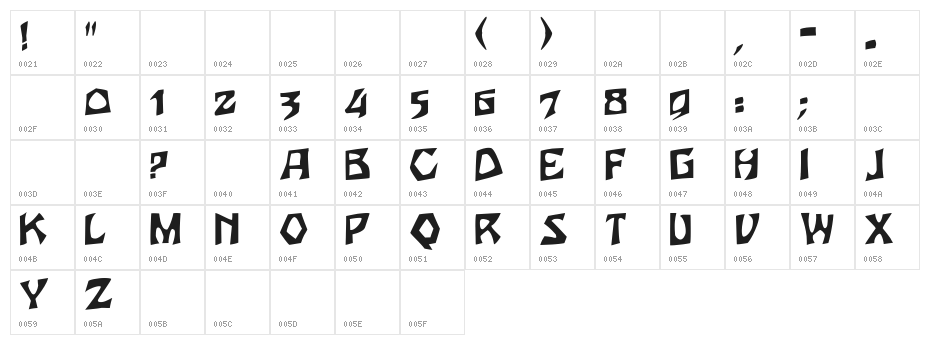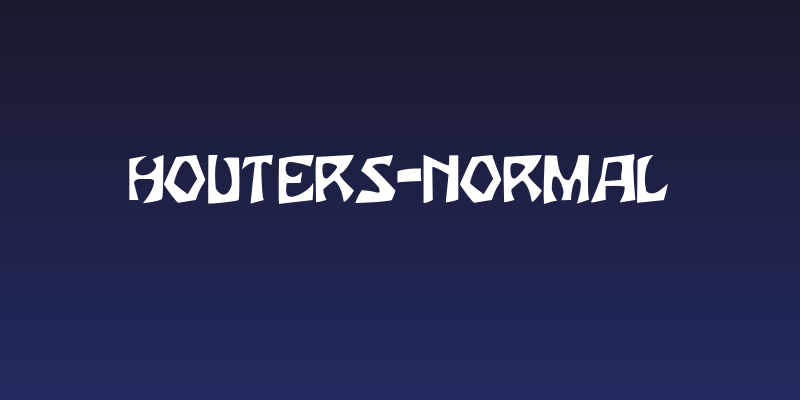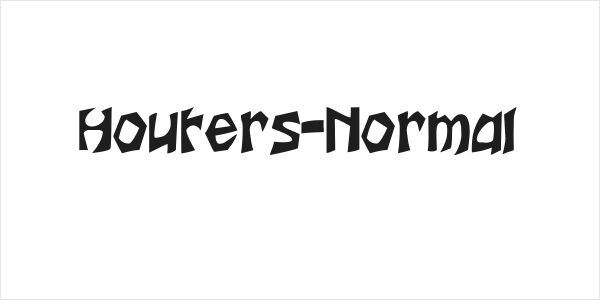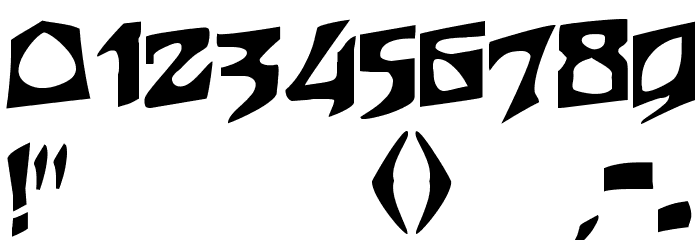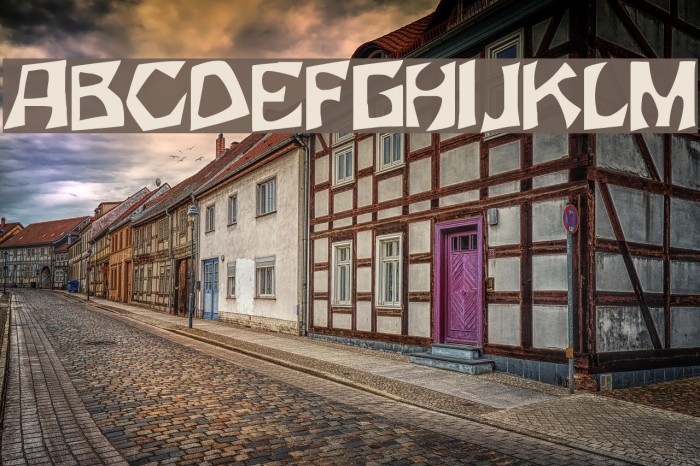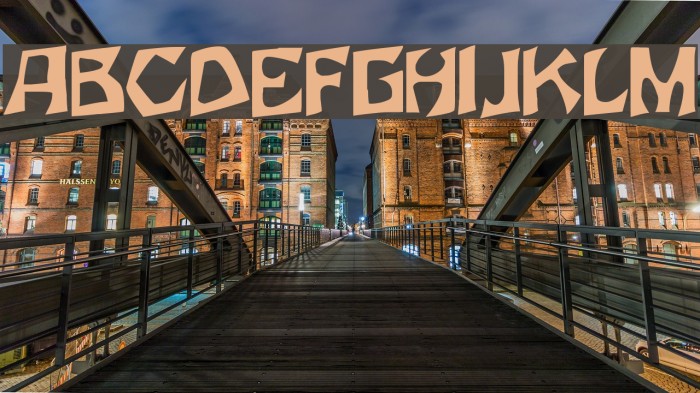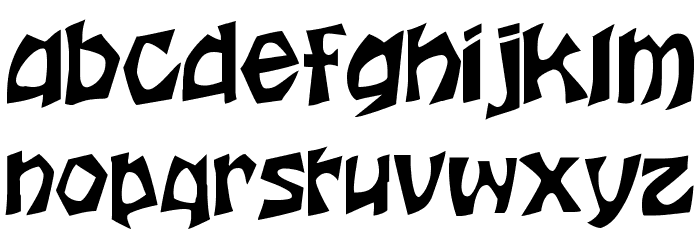
Houters-Normal Font
Houters-Normal Description
This font features a bold, angular design with sharp edges and a dynamic, energetic feel. The characters are uniquely stylized, with a strong emphasis on geometric shapes and a slightly aggressive appearance. The uppercase and lowercase letters maintain a consistent style, with exaggerated angles and a sense of movement. The numbers and special characters follow the same design principles, ensuring a cohesive look across all elements. This font is eye-catching and ideal for projects that require a bold statement.
| Proposed Projects | Ideal for posters, logos, video game graphics, and branding that requires a bold, energetic look. |